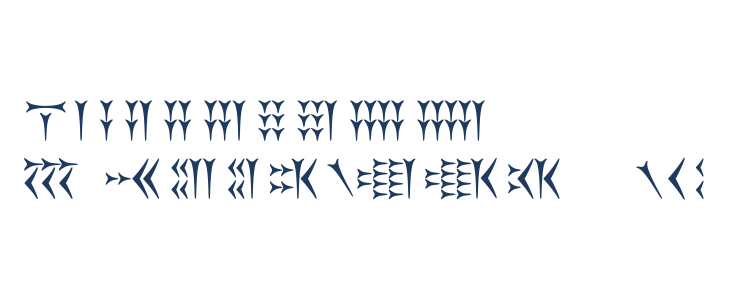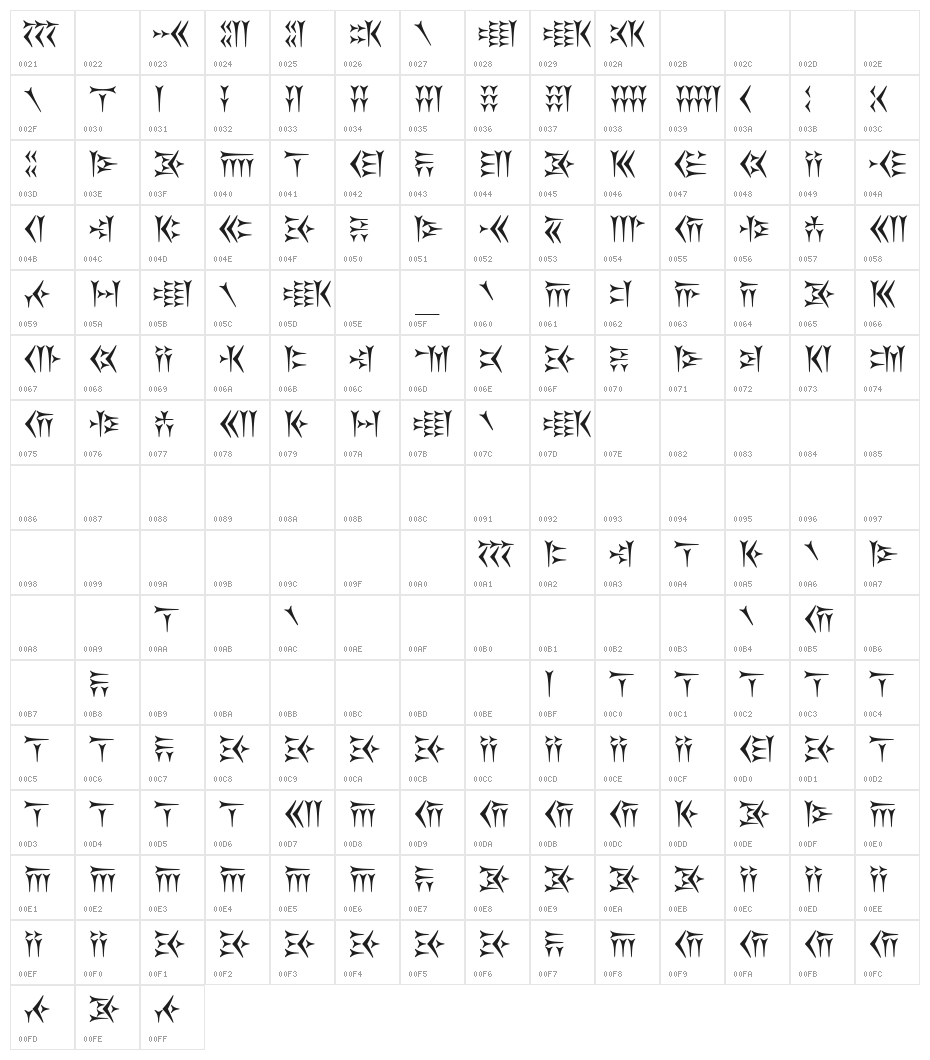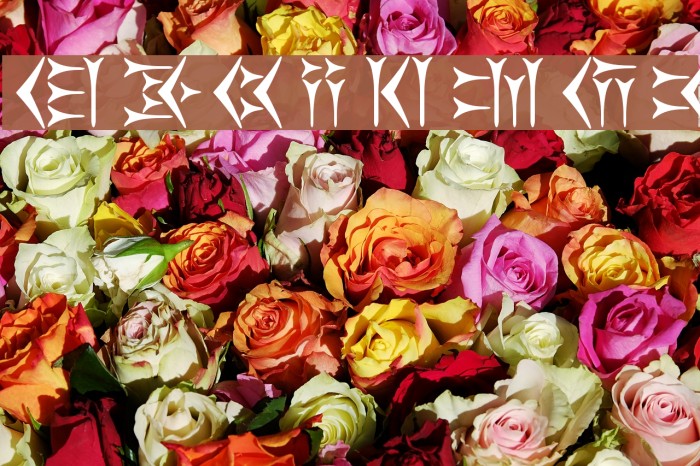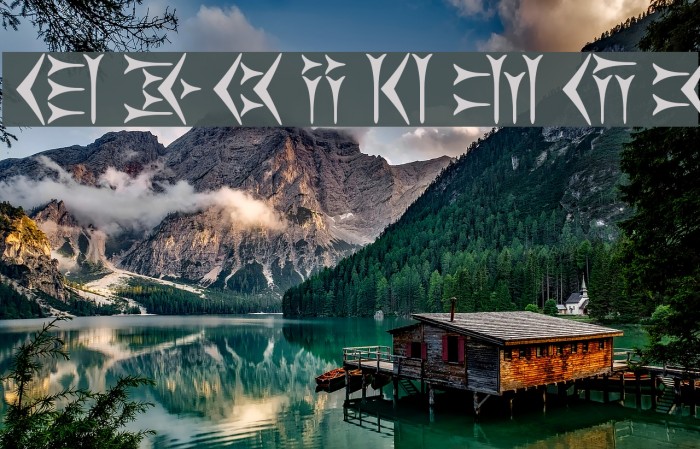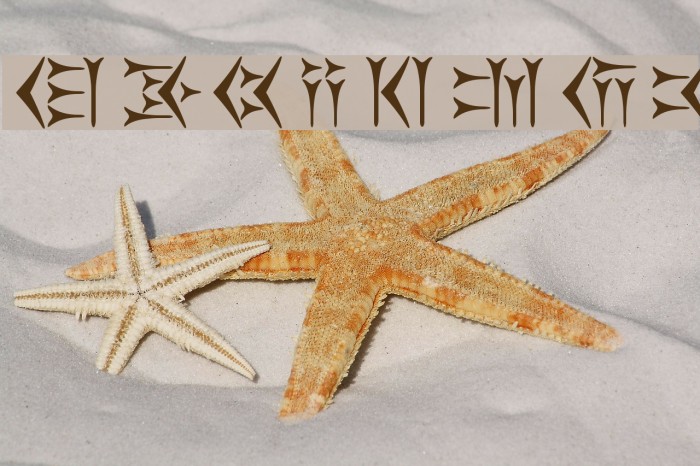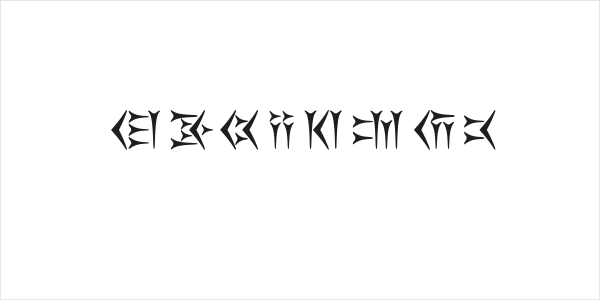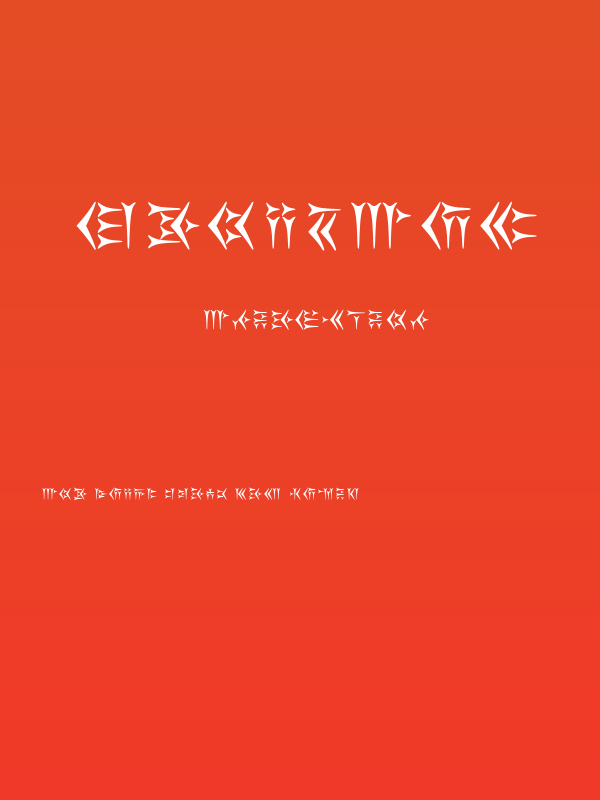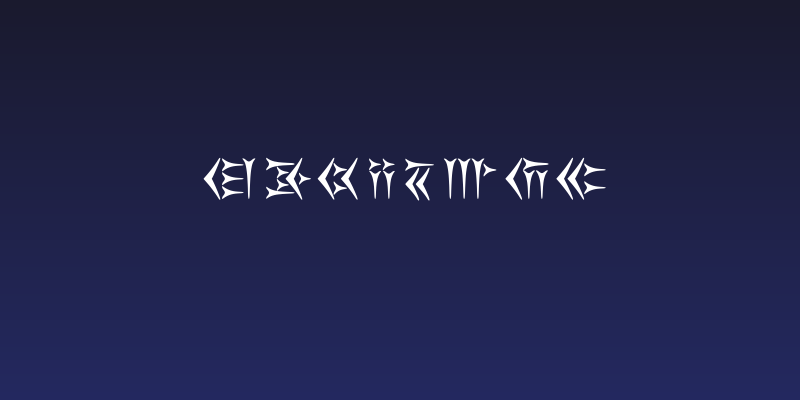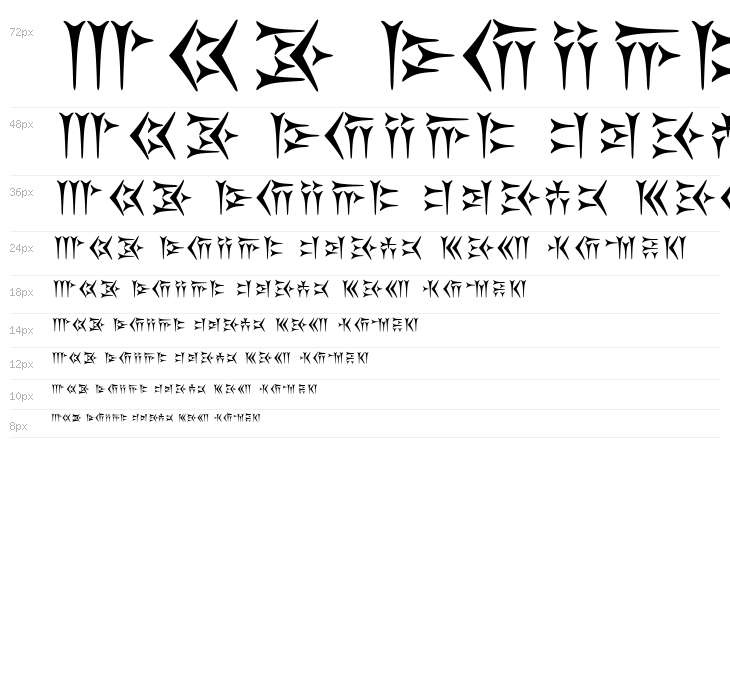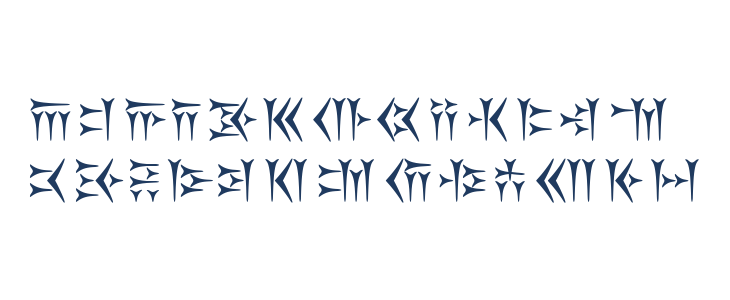
Behistun Font
| 整体风格 | Historic, Monumental |
| 使用场景 | Decorative inscriptions, Educational materials |
| 推荐项目 | Ideal for historical documentaries, educational materials on ancient civilizations, or as a decorative element in themed events or exhibitions. |